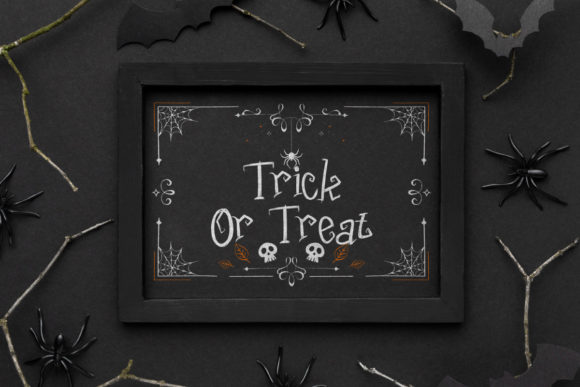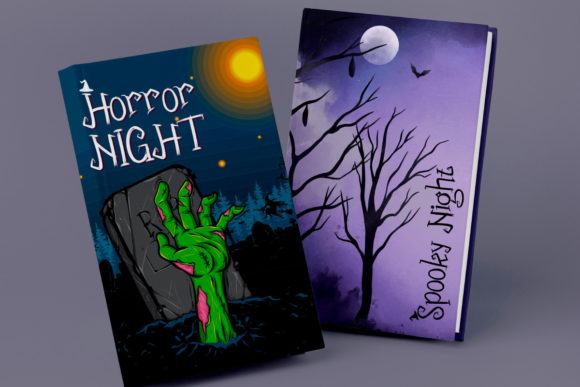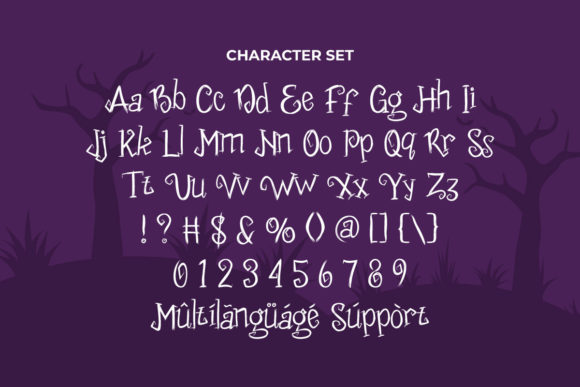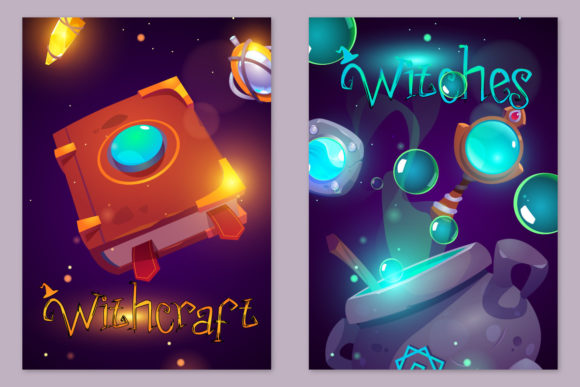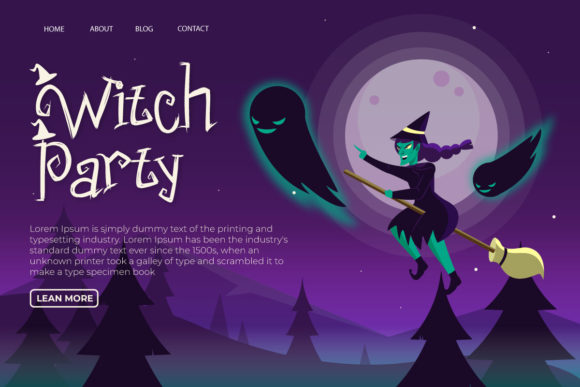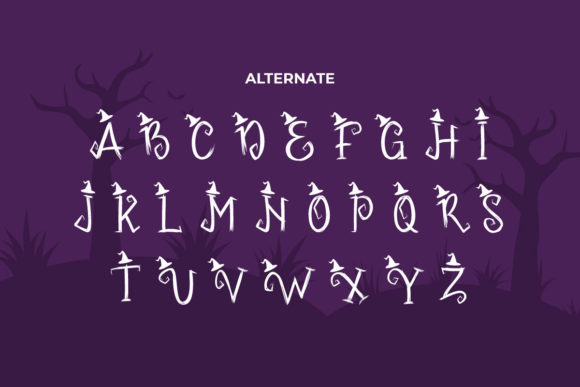
The Perfect Potion for Your Halloween Projects
It’s that time of the year again – the nights are getting darker, the pumpkins are getting carved, and the creative juices are flowing. As a designer, you’re probably brainstorming ideas for your next Halloween project. But what if you could add a dash of magic to your designs? Introducing the Funny Witches Font, a spellbinding display font that’s sure to cast a spell on your audience.
With its playful, spooky vibe, the Funny Witches Font is the perfect addition to any Halloween-themed project. Whether you’re creating invitations, posters, or decorations, this font will add a touch of whimsy and charm to your designs. And with its PUA encoding, you can access all the glyphs and swashes with ease, giving you endless possibilities for creative expression.
Funny Witches Font Key Features
- Font Family: A playful, cursive font designed to resemble traditional witchcraft symbols and characters.
- Unique Characteristics: Distinctive, whimsical characters, including magical symbols, and spell-like accents, adding a touch of fantasy to any design.
Designer Review: Funny Witches Font
Overall, I found the Funny Witches Font to be a quirky and playful addition to any design project. The font is perfect for those looking to add a touch of whimsy and fantasy to their work. Here’s what I liked and didn’t like about it.
- The font’s unique character set is full of fun and creative symbols, making it perfect for Halloween or fantasy-themed designs.
- The bold and colorful design elements of the font are sure to grab the viewer’s attention and add a pop of fun to any project.
- The font is highly customizable, allowing designers to adjust the size, color, and style to fit their specific needs.
- The font may not be suitable for formal or professional designs, as its playful nature may detract from the seriousness of the content.
- The font’s character set is limited, which may make it difficult to use for longer blocks of text.
- The font’s bold and colorful design elements may be overwhelming if not used judiciously.
Overall, I would recommend the Funny Witches Font for designers looking to add a touch of whimsy and fantasy to their work. While it may have some limitations, its unique character set and high level of customization make it a great choice for the right project.
The Funny Witches Font is perfect for adding a whimsical touch to your designs, such as:
- Magical-themed party invitations
- Spooky Halloween decorations
- Witchy-themed book covers
Remember to experiment with different font sizes, colors, and combinations to get the most out of this unique font.